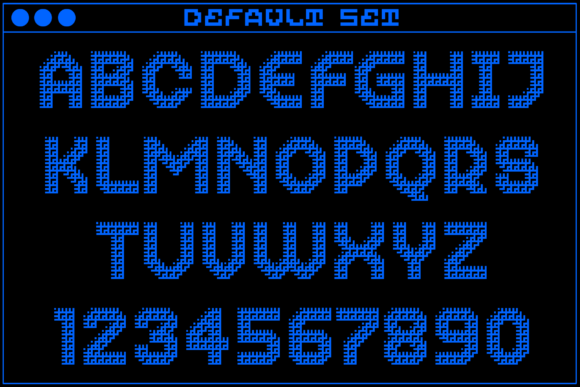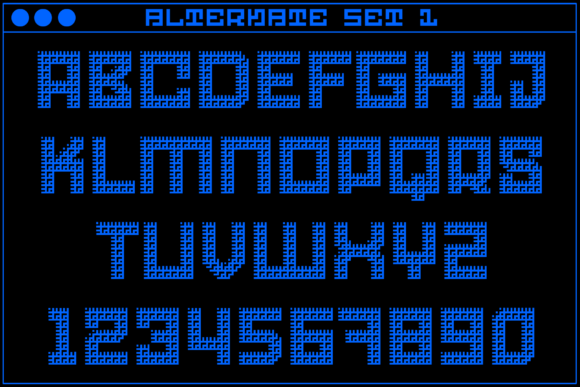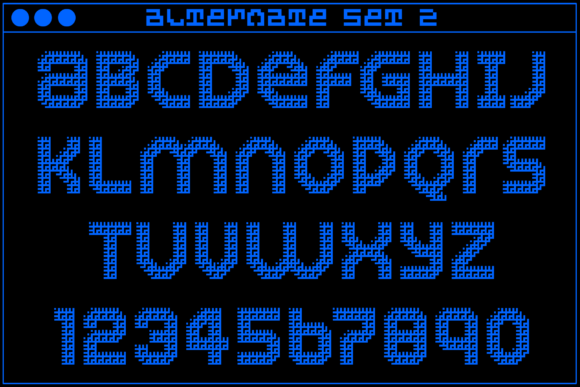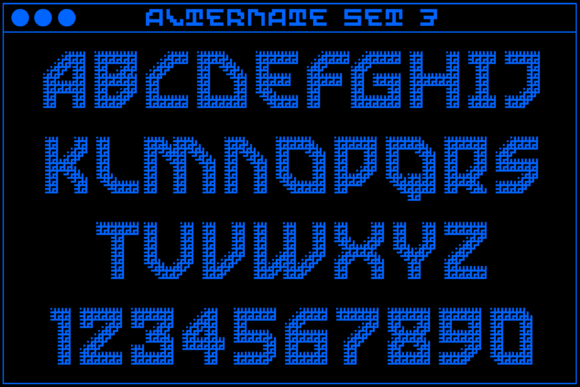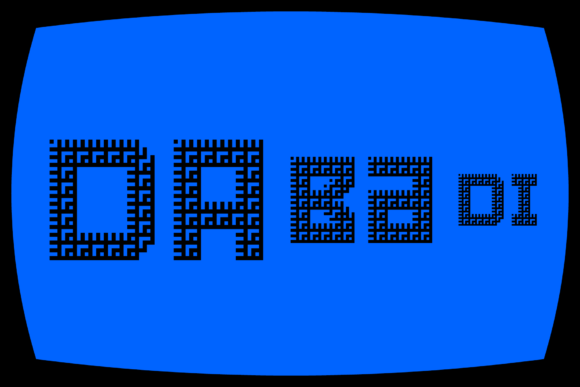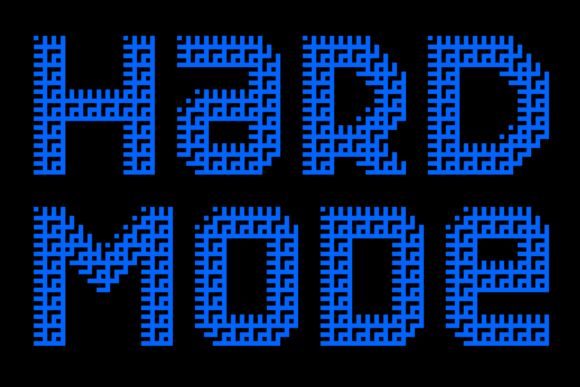
Introduction to MultiType Maze Stairs 3 Font
MultiType Maze Stairs 3 is a cool, uniquely shaped, pixelated display font.
Add a distorted and trendy touch to your designs with this unusual pixel font MultiType Maze Stairs 3 is PUA encoded which means you can access all glyphs and swashes with ease.